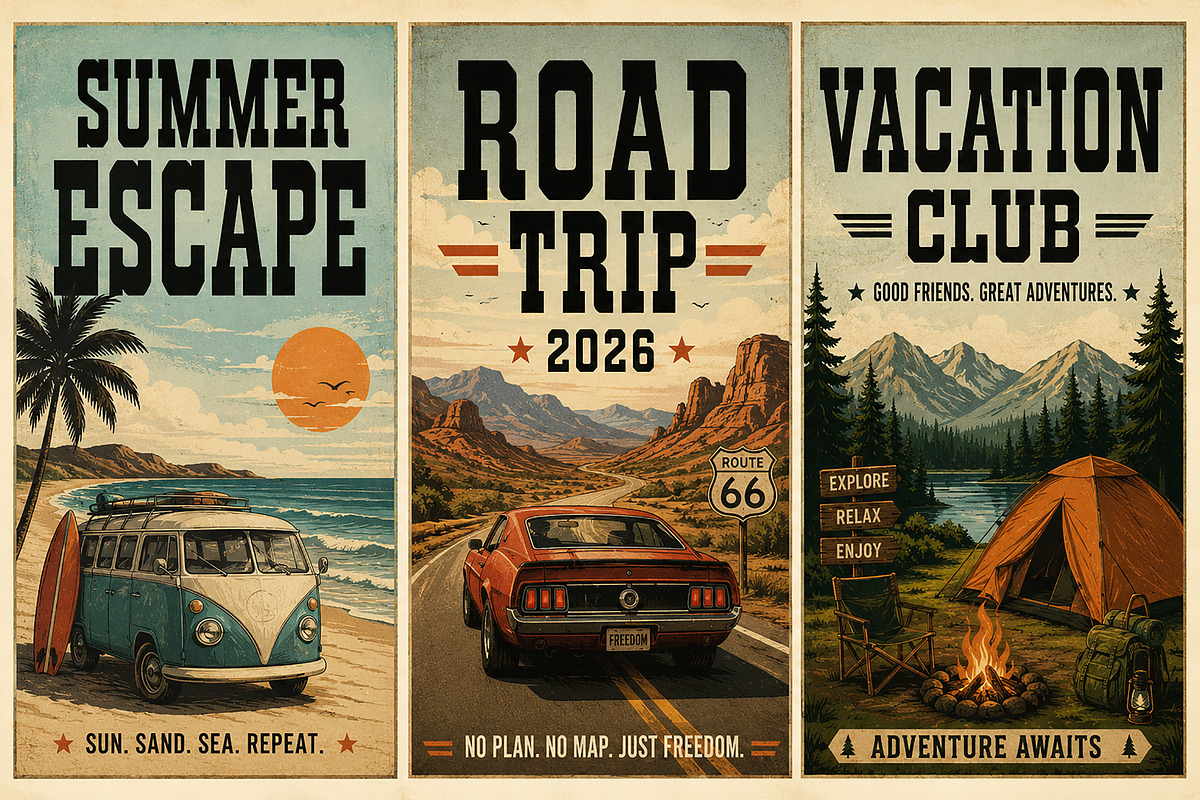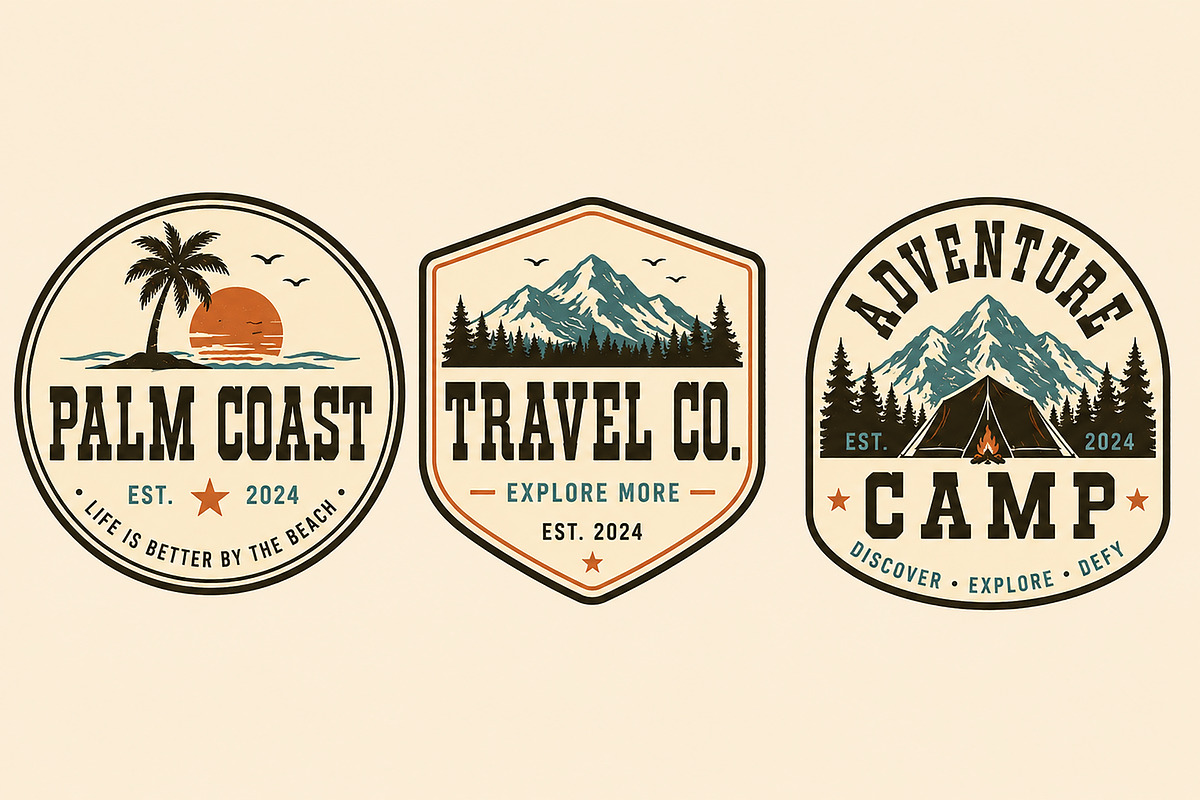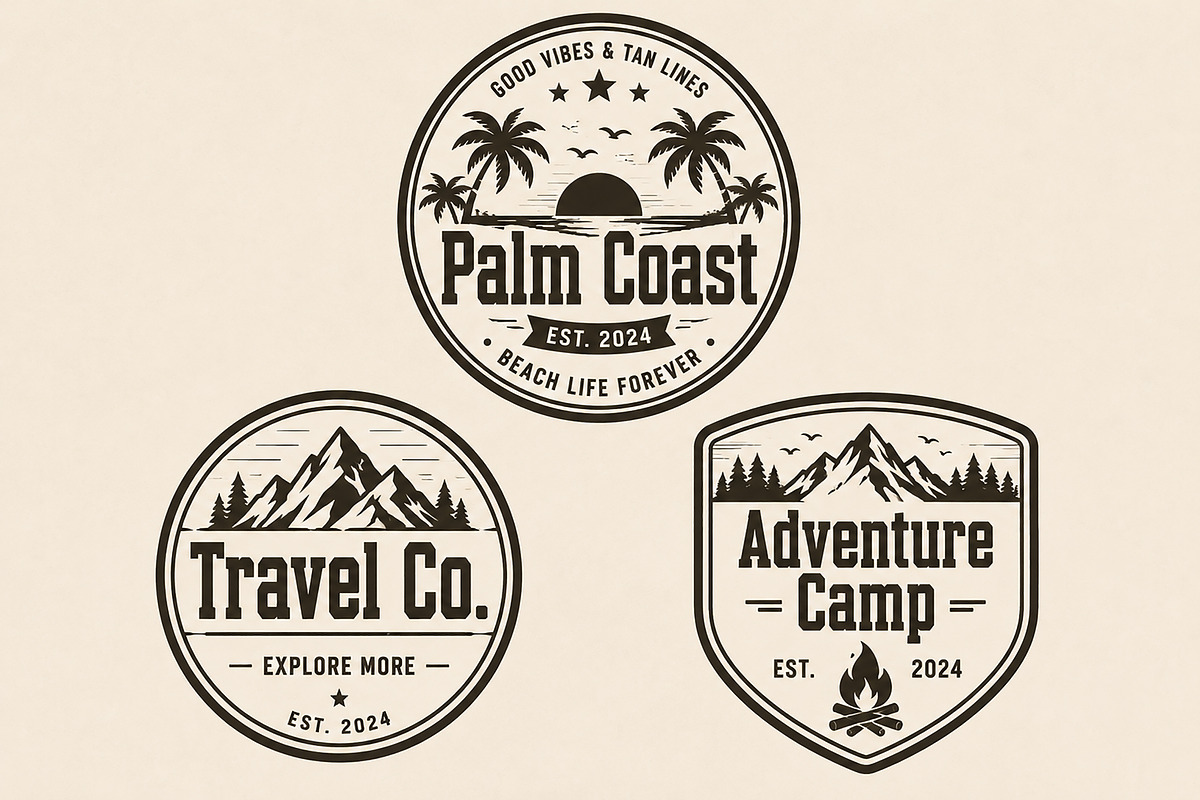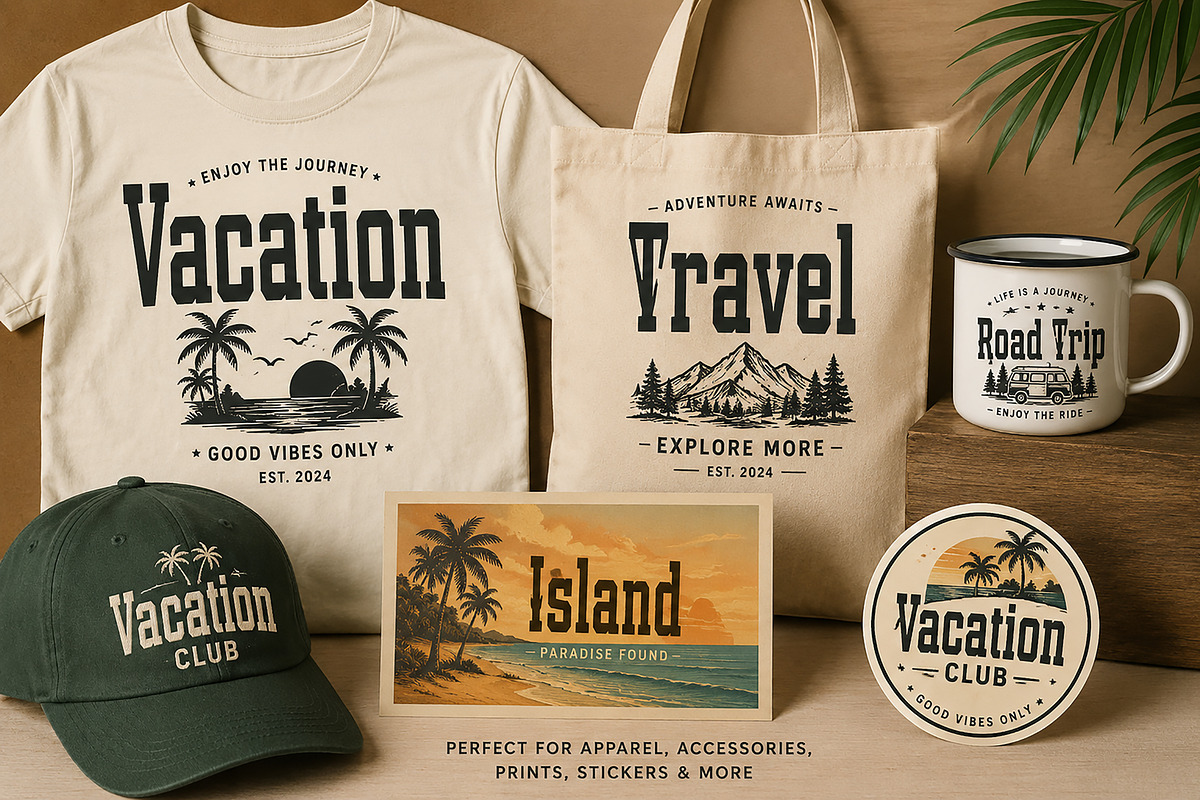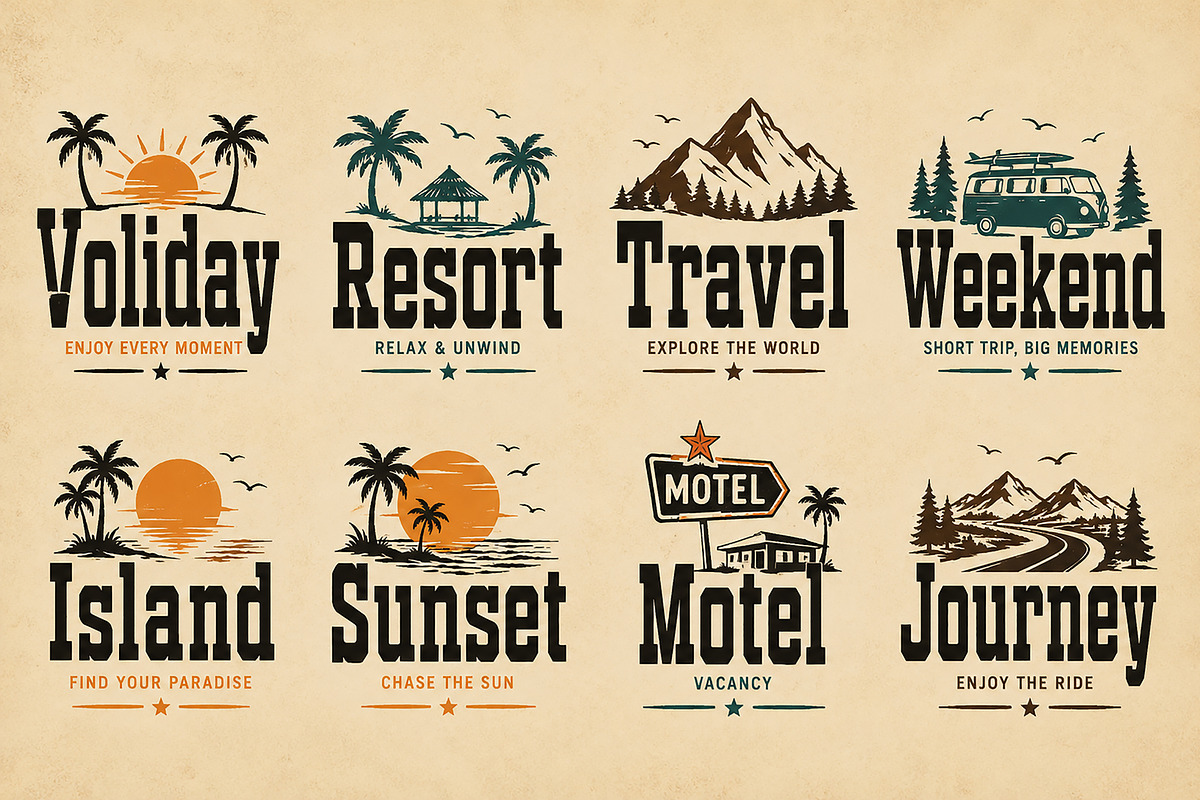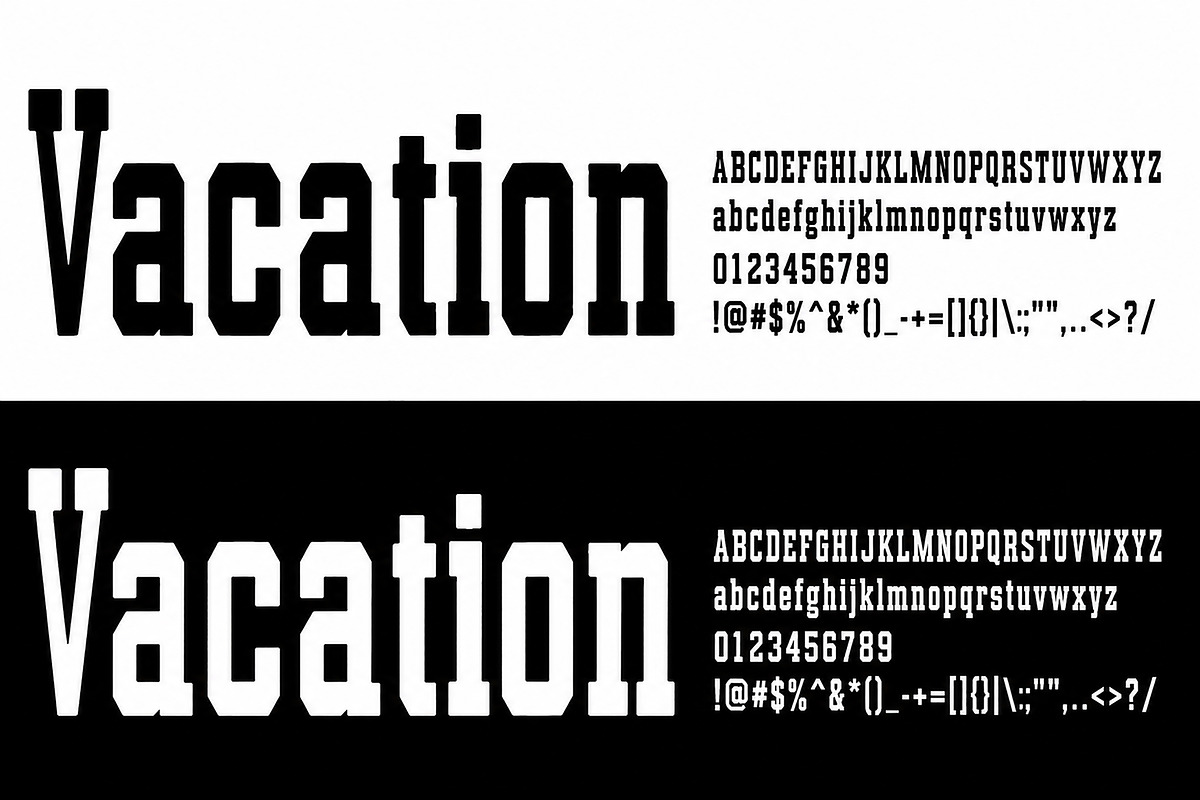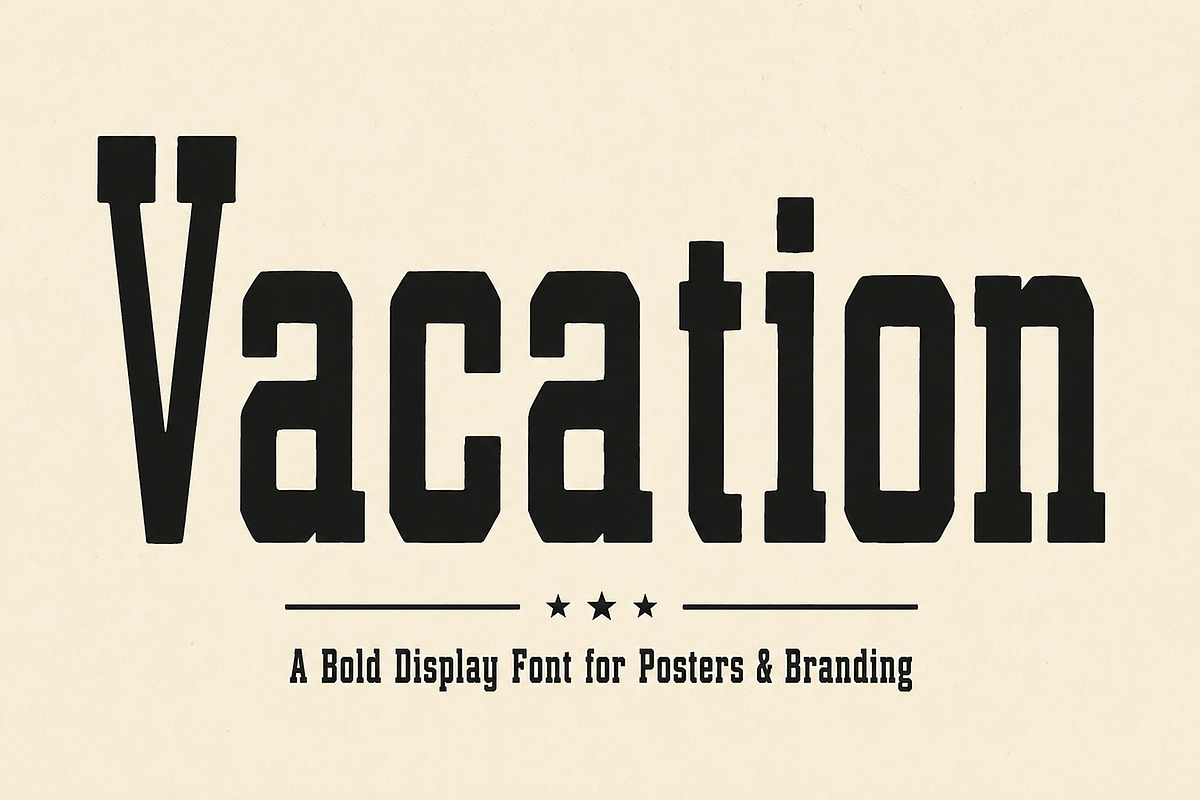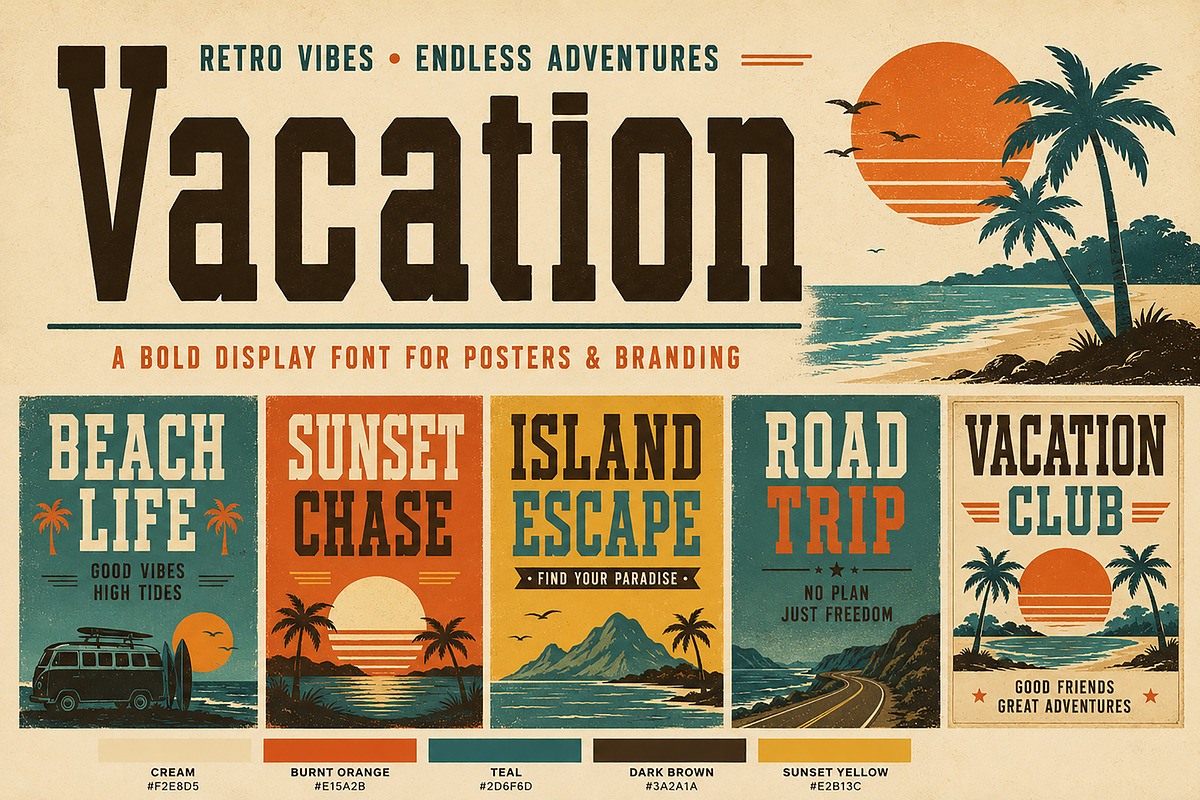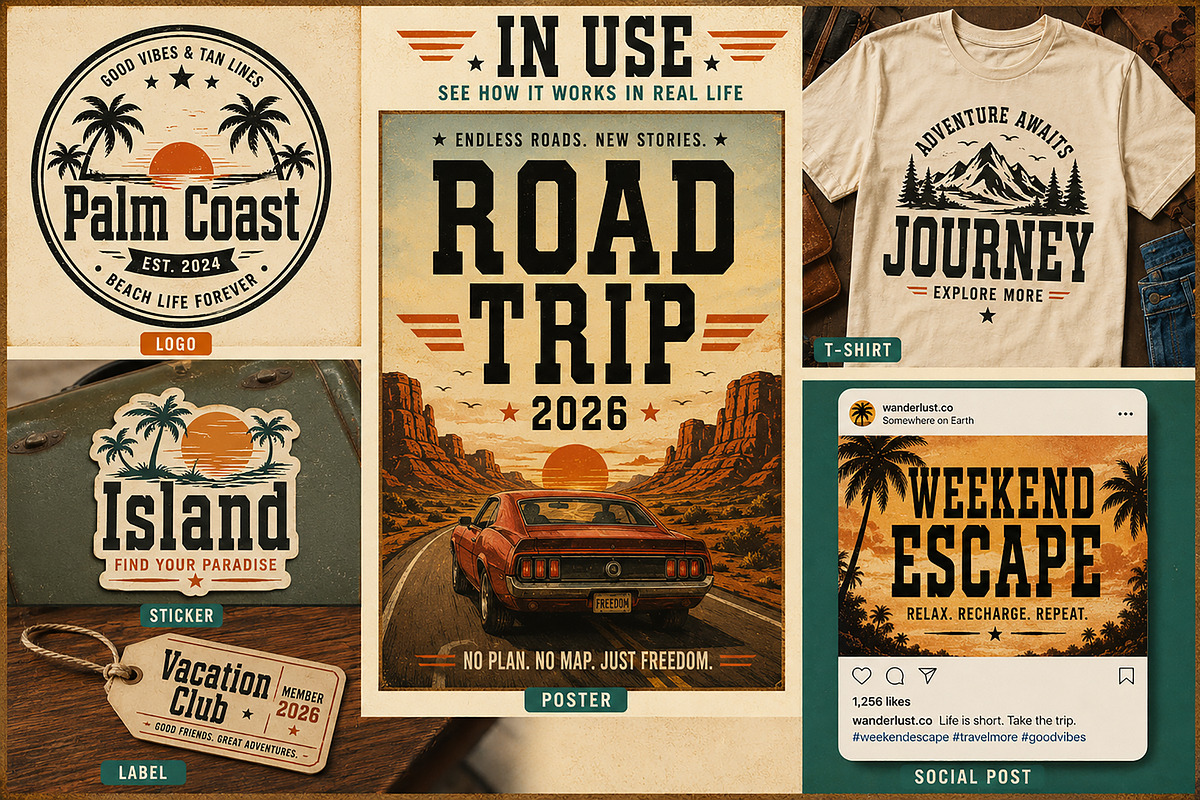
Vacation
Vacation – Display Font / Tall Serif Font / Retro Font
Vacation is a bold and tall display font with a clean retro-inspired style and strong vertical letterforms. Its condensed slab-serif structure gives a classic vintage personality while maintaining a modern and eye-catching appearance perfect for creative branding and headline typography.
This font is ideal for travel-themed designs, posters, apparel, logos, packaging, signage, editorial layouts, merchandise, and bold promotional graphics. The tall sporty structure creates a confident and stylish look that works beautifully in both print and digital projects.
Vacation combines retro charm with modern simplicity, making it perfect for designers who want strong typography with a timeless visual character.
Travel Posters
Vintage Branding
Apparel Design
Packaging
Editorial Titles
Signage
Event Graphics
Bold Headlines
Tall Display Style
Condensed Serif Structure
Retro-Inspired Design
Strong Vertical Letterforms
Uppercase & Lowercase Characters